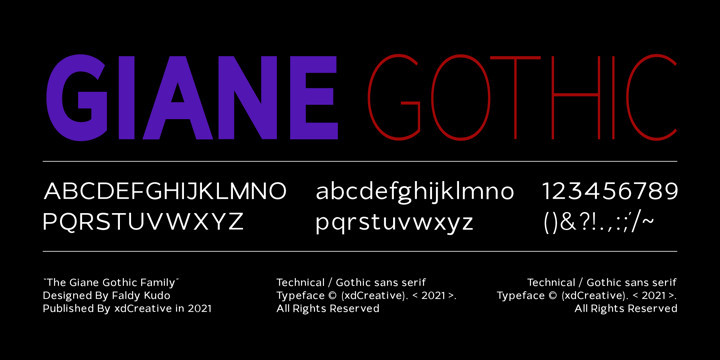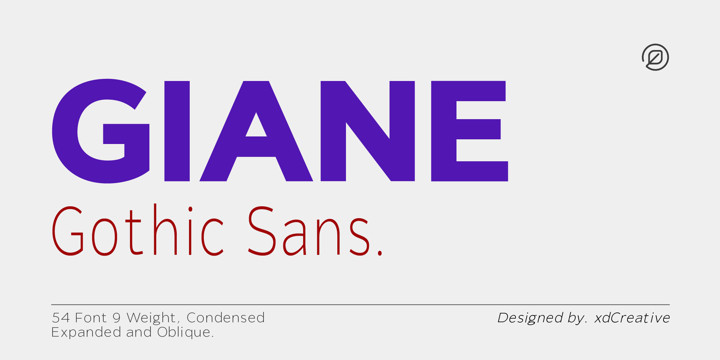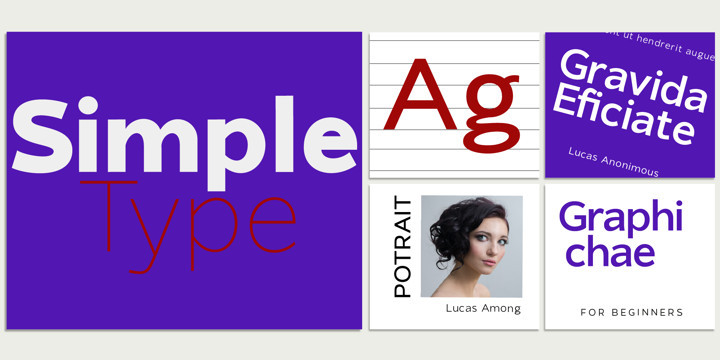
Giane Gothic Sans Font
Giane Gothic Sans FontGiane Gothic sans is stylish sans serif font with Gothic touch, Giane Gothic is a younger brother of the original “Giane” family font.
Giane Gothis is perfectly matching pair with Giane Serif
Giane Gothic sans Perfectly suited for graphic design and any display use ( for the logos, t-shirts, the web as well as for print, and also great for headings)